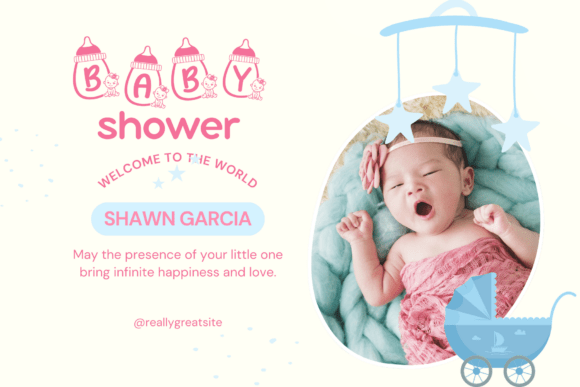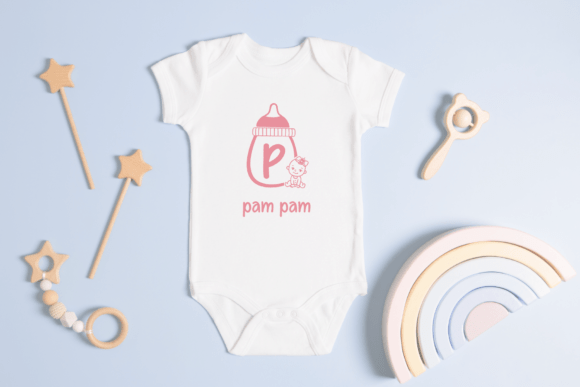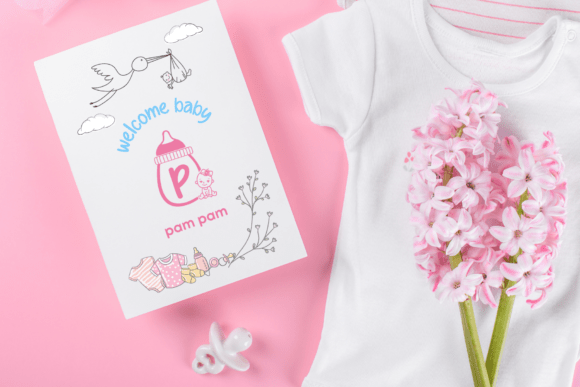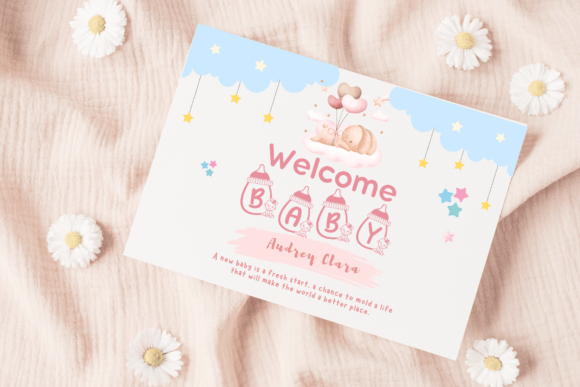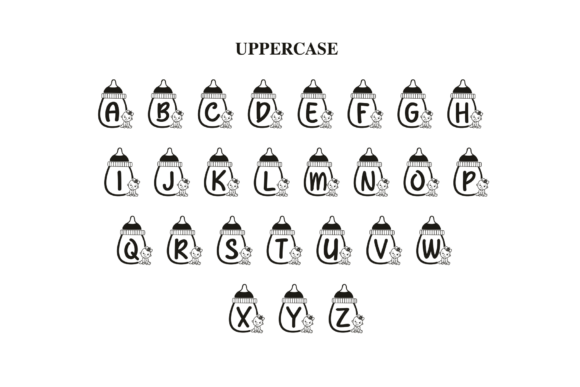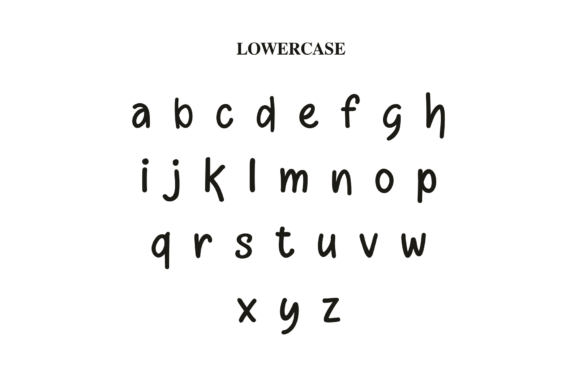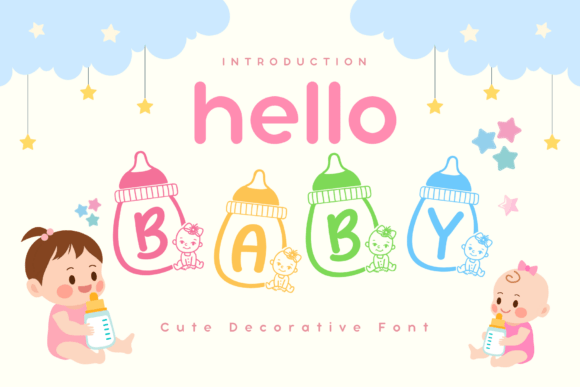
Hello Baby Font: The Ultimate Choice for Cute and Happy Designs
Are you looking for a font that can add a touch of happiness and cuteness to your designs? Look no further than the Hello Baby Font! This adorable decorative font is perfect for a wide range of projects, from blog posts and logos to branding, ads, invitations, greeting cards, planners, photo albums, decorations, and more.
What Makes Hello Baby Font So Special?
Hello Baby Font is a unique and charming font that embodies the spirit of happiness and cuteness. Its playful and whimsical design makes it an ideal choice for designers and crafters who want to add a personal touch to their work. Whether you’re creating a logo, branding materials, or social media graphics, this font is sure to make your designs stand out.
Hello Baby Font is a versatile font that can be used for a variety of design projects. Here are some ideas to get you started:
- Blog Posts: Add a touch of personality to your blog posts with Hello Baby Font. Use it for headings, titles, or even entire paragraphs to make your content more engaging and fun to read.
- Logos and Branding: Create a memorable brand identity with Hello Baby Font. Its cute and playful design makes it perfect for logos, business cards, and other branding materials.
- Ads and Marketing Materials: Grab attention with Hello Baby Font in your ads and marketing materials. Its unique design will help your message stand out and leave a lasting impression.
- Invitations and Greeting Cards: Make your invitations and greeting cards more special with Hello Baby Font. Its whimsical design is sure to delight the recipient and make your card or invitation more memorable.
- Planners and Photo Albums: Add a personal touch to your planners and photo albums with Hello Baby Font. Use it for headings, captions, or even journaling to make your content more engaging and fun to read.
- Decorations: Use Hello Baby Font to create beautiful decorations for your home or office. From wall art to DIY projects, this font is sure to add a touch of personality to your decor.
Why Choose Hello Baby Font?
There are many reasons why Hello Baby Font is the perfect choice for your design projects. Here are a few:
- Cute and Playful Design: Hello Baby Font has a unique and charming design that is sure to add a touch of happiness and cuteness to your designs.
- Versatile: This font can be used for a wide range of design projects, from blog posts and logos to branding, ads, invitations, and more.
- High-Quality: This font is of high quality, ensuring that your designs look professional and polished.
Hello Baby Font is a cute and playful decorative font that is perfect for a wide range of design projects. Its unique and charming design makes it an ideal choice for designers and crafters who want to add a personal touch to their work. With its versatility, ease of use, and high-quality design, Hello Baby Font is sure to become a favorite in your font library. So why wait? Download Hello Baby Font today and start creating adorable designs that will delight your audience!